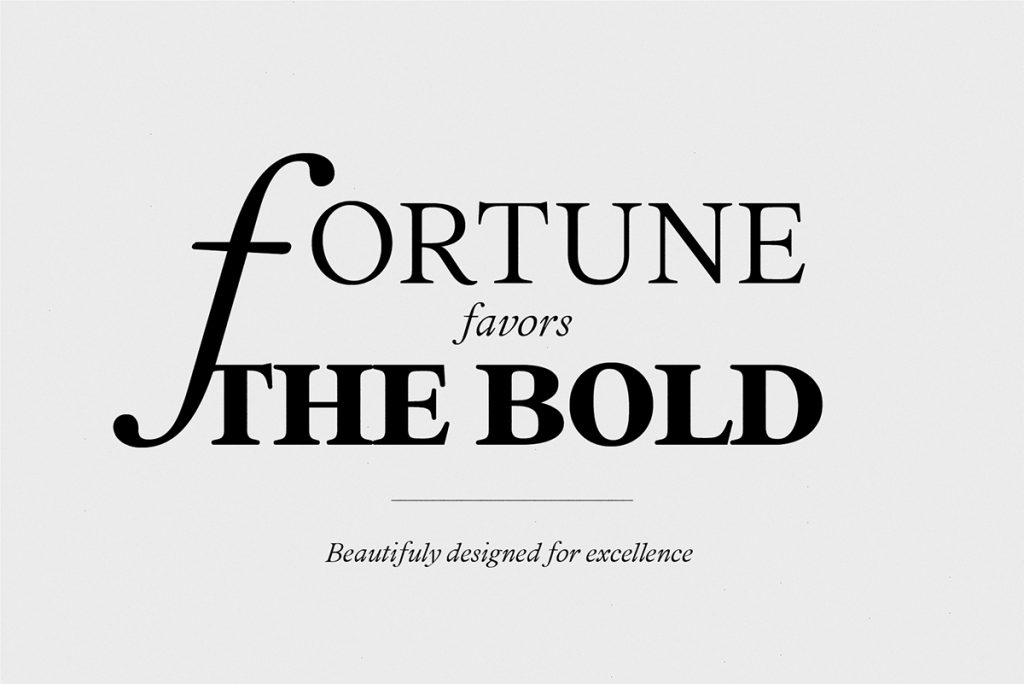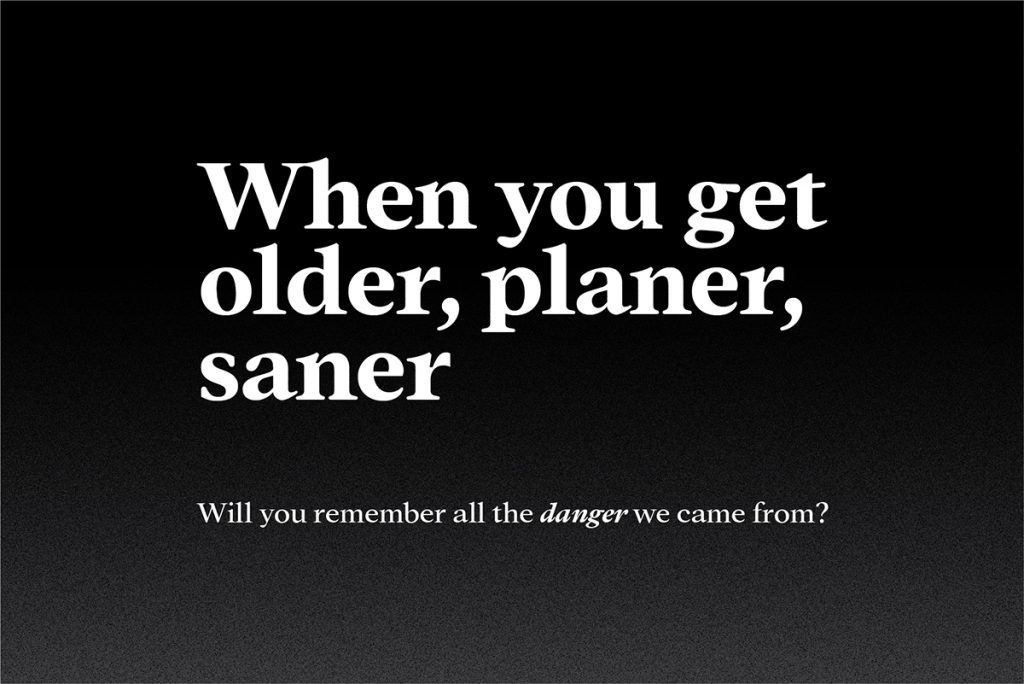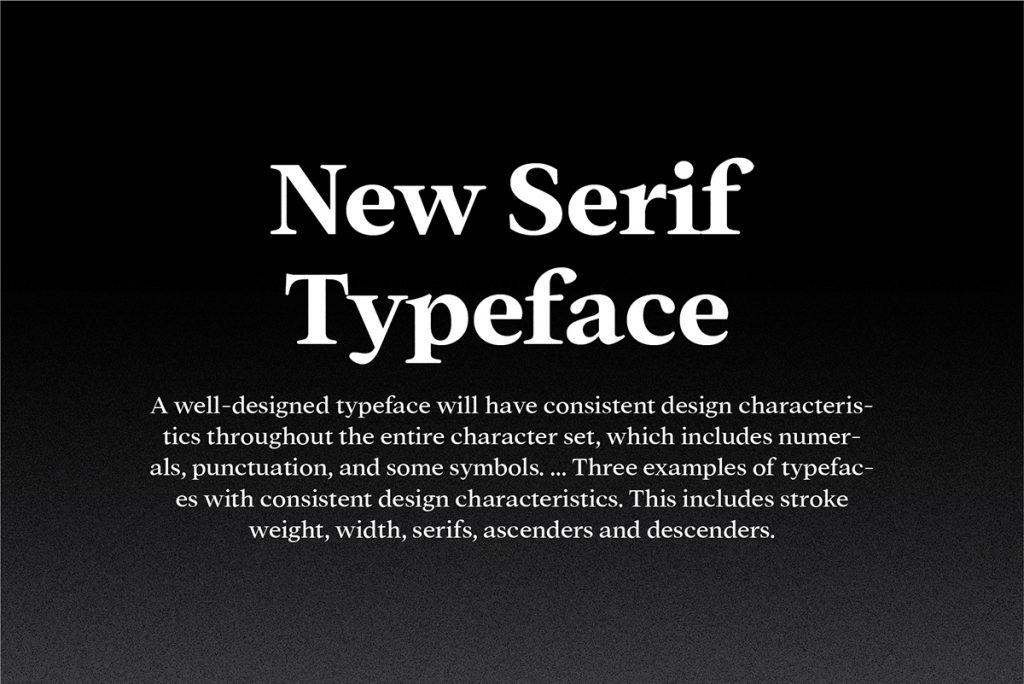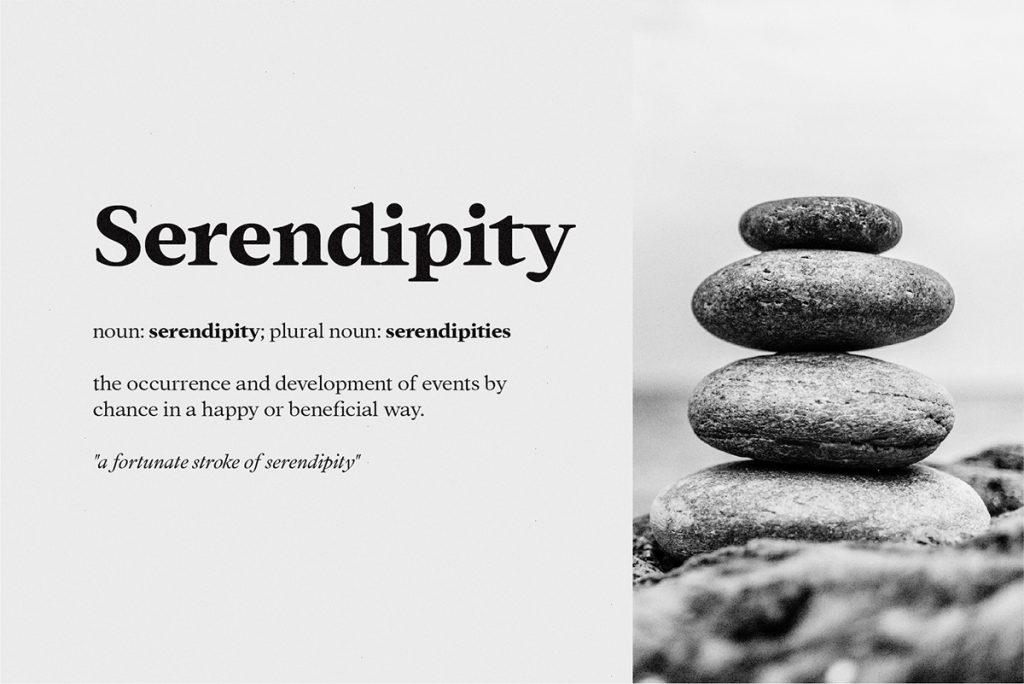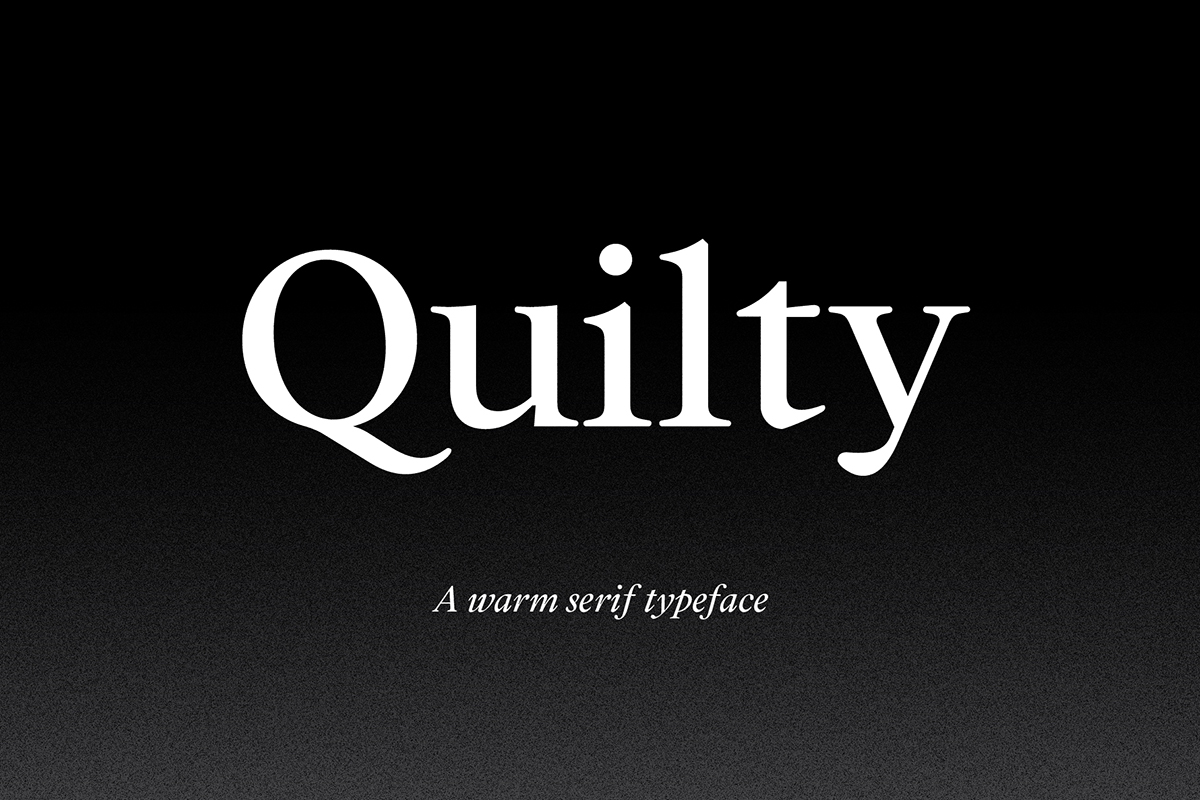
Quilty Serif Extra Bold is a gorgeous warm serif typeface from the Quilty Serif family. It’s been meticulously created to be an amazing serif typeface. It’s ideal for text-heavy contexts and also works well as a display font. Quilty Extra Bold display font is a personal all capitals restricted sample version.
Advanced OpenType capabilities, small capitals, comprehensive language compatibility, Otf, Ttf, and web fonts formats are all included in the Quietly typeface.
– 14 roman and italic styles
– Upper and lower case letters, markings, and ligatures
– Small caps and advanced OpenType features